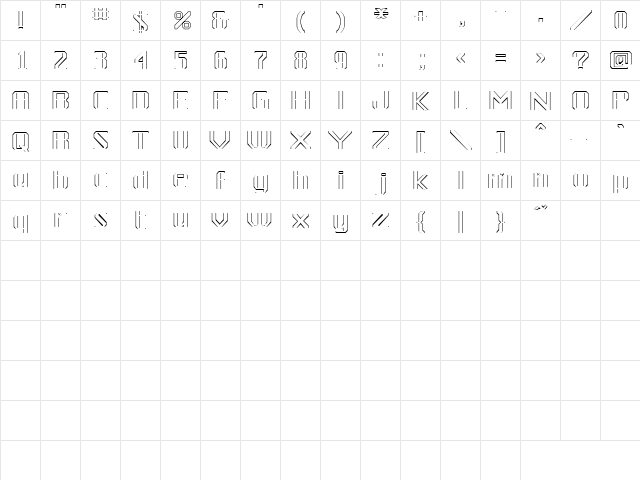
Wither Outline 7 Regular
Design Context for Wither Outline 7 Typeface
Wither Outline 7 is built around its visual character rather than neutral utility — its distinctive forms are designed to make an impression at display sizes.
Font Pairing: Pair with a clean neutral sans-serif for body copy to let Wither Outline 7's character lead without overwhelming the composition.
Pro Tip: Treat Wither Outline 7 as the centrepiece of your typographic hierarchy. One strong heading set in a decorative face can carry an entire layout.